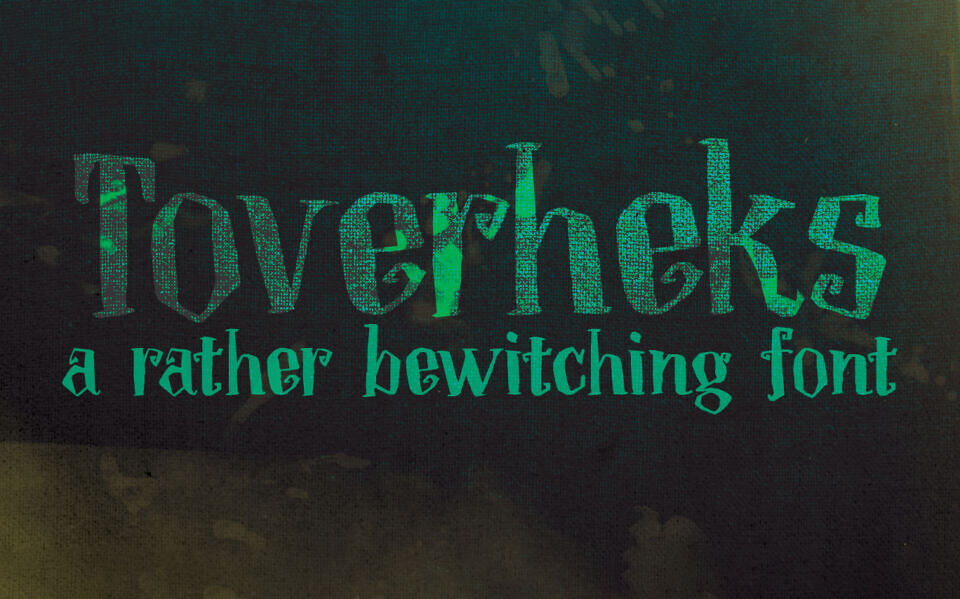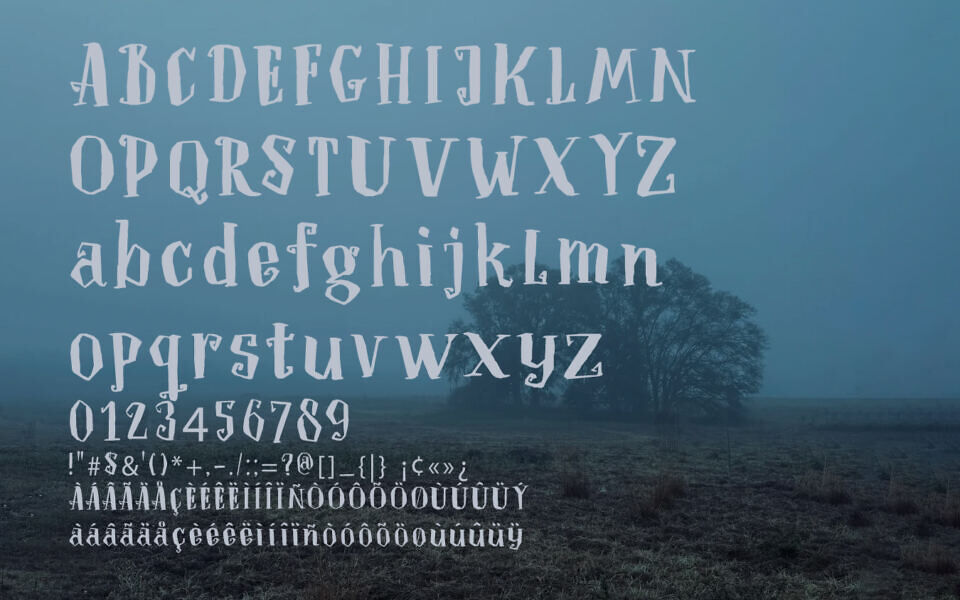
DK Toverheks is a decorative display typeface inspired by witchcraft and magical themes. Featuring a didone-style structure with sharp contrasts, jagged edges, and playful curly details, it delivers a mystical and slightly eerie look.
Its ornamental letterforms resemble spellbook typography, making it perfect for fantasy designs, Halloween projects, posters, and book covers that need a magical, handcrafted aesthetic.